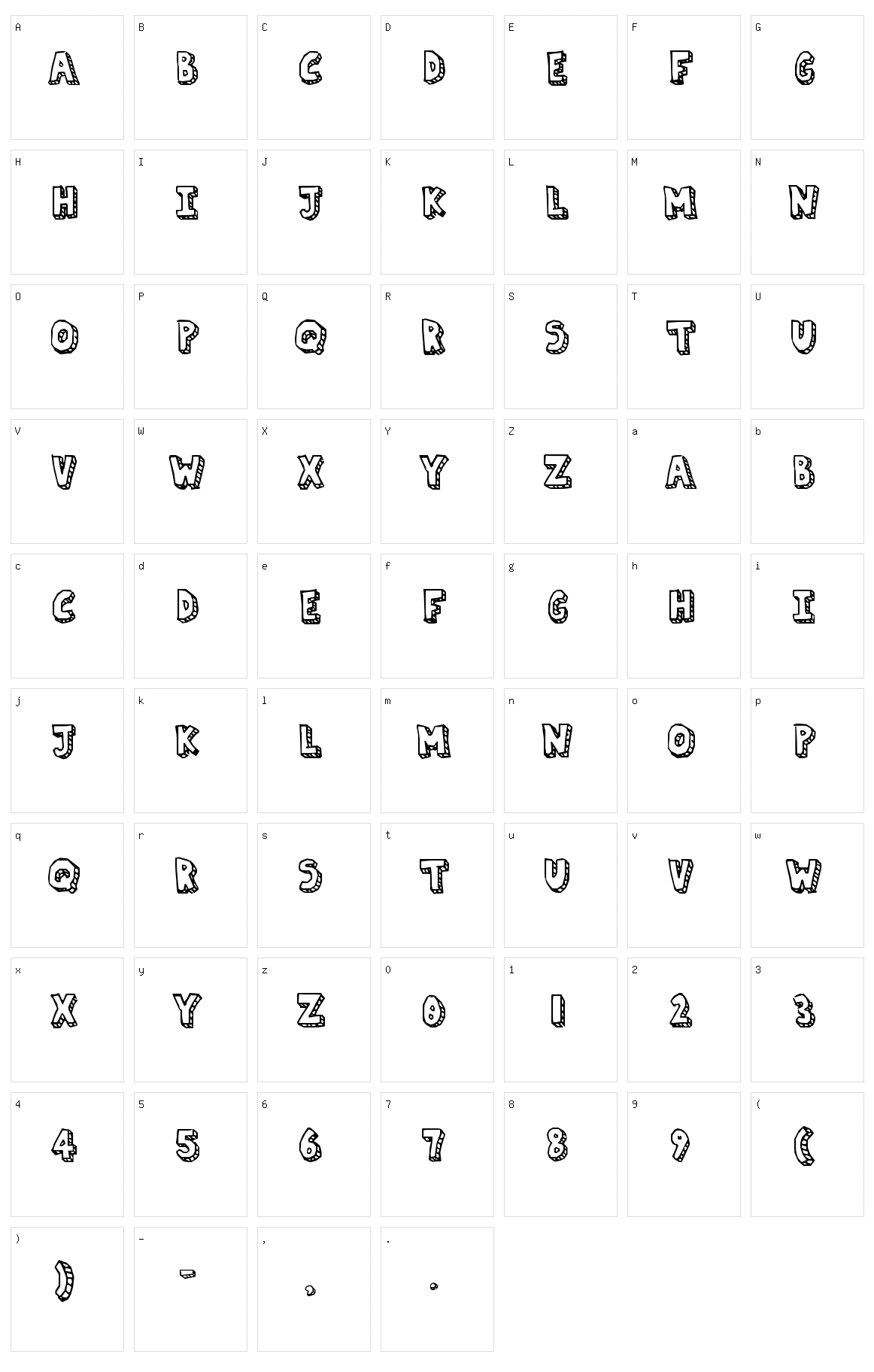
The free font Paper Mache is carefully designed by Brixdee, showcasing a thoughtful balance of creativity and usability and falls under the Cartoon font style. When you download the ZIP file, it contains only 595.4 KB of font files, making it lightweight and quick to download. Please review the license details below to understand permitted usage and distribution rights. If license information is not available, we recommend using this font for personal projects only or contacting the author directly for commercial usage permissions.
This font "Paper Mache" is created by Francis Fonye.